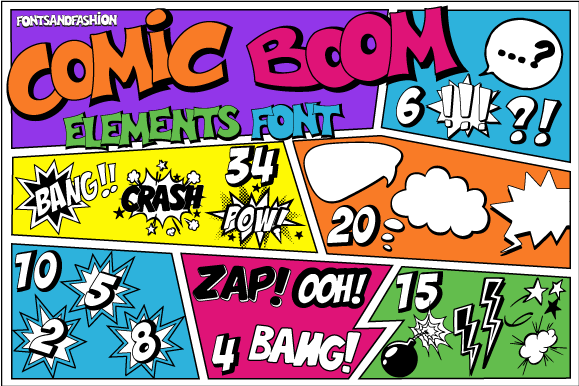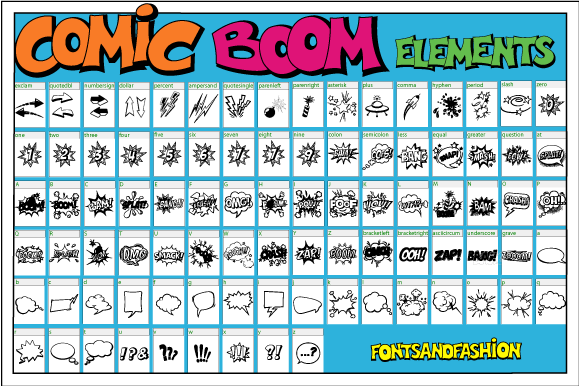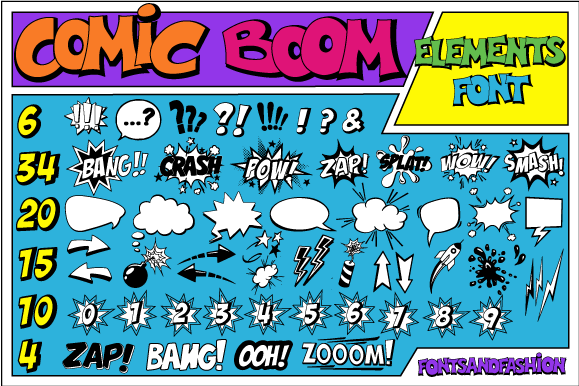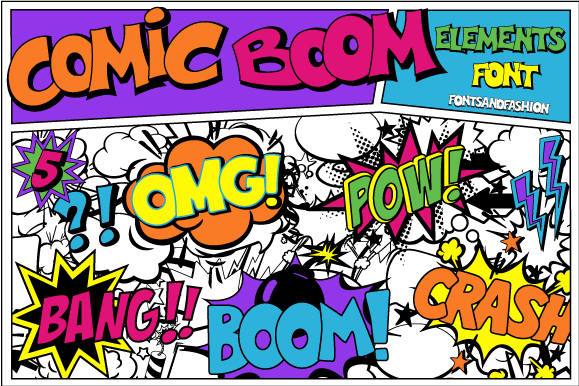
Comic Boom Element is an elements font inspired by comic books and pop art.
It is a very useful and versatile collection composed by 89 comic and funny superheroes subjects. Use this collection to create amazing designs and bring any DIY project to life!